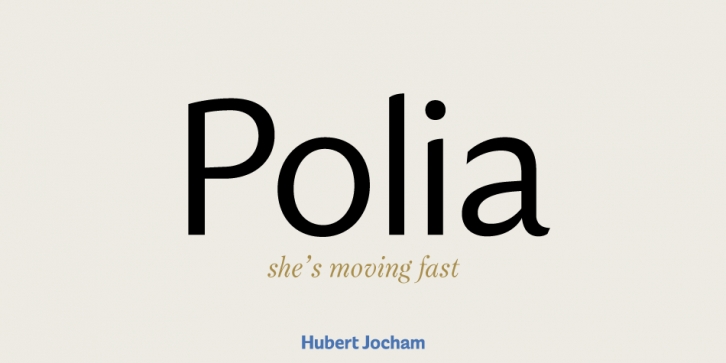
Designed by Hubert Jocham, Polia is a sans serif and display sans font family. This typeface has twenty-one styles  and was published by Hubert Jocham.
The forms of Polia have been carefully chosen after many different directions I went into. It is one of those characters that attract at the second sight.
The idea was to have a movement to the right in the round elements and in the endings. The dynamics start quiet on the baseline and gets stronger further up. Still the main strokes are perfectly upright. It is always one of those ideas that make a start for a typeface, but at the end it is the athmosphere in text that makes it interesting. Polia is very legible and unique down to very small sizes. All together that makes Polia a perfect tool for magazines and corporate usage.
Polia has 10 weights with italics and an additional weight Polia Ornament.